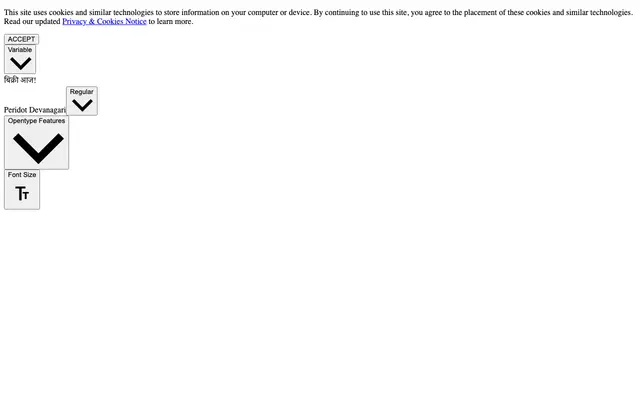
Peridot Devanagari
Foundry Five · Pria Ravichandran, Kostas Bartsokas · 2023
A 10-weight, 6-width Devanagari and Latin sans serif system with variable support, covering over 330 languages and awarded at Communication Arts Typography 2024.
Designed by Pria Ravichandran with Latin support from Kostas Bartsokas, Peridot Devanagari is a substantial multi-script type system spanning 20 static styles across 10 weights with matching italics and six widths, all available in variable format. The family supports Devanagari and Latin across more than 330 languages, with localised variants, tabular numerals, fractions and discretionary ligatures built in. It received the Award of Excellence at the Communication Arts Typography Competition 2024 and an EBGE award for original typeface at the Greek Communication Design Awards 2023.
A multi-script sans serif system with humanist proportions, designed to work cohesively across Devanagari and Latin scripts with a full weight and width range.